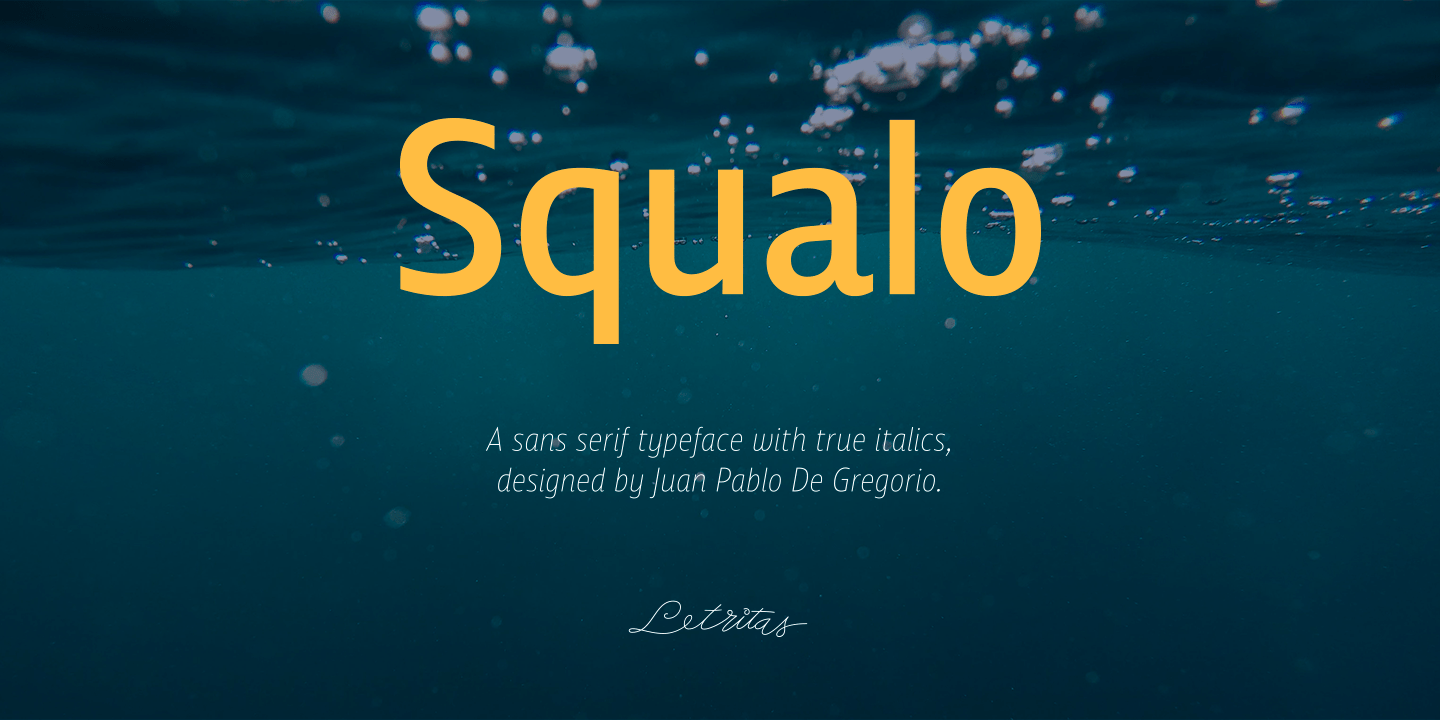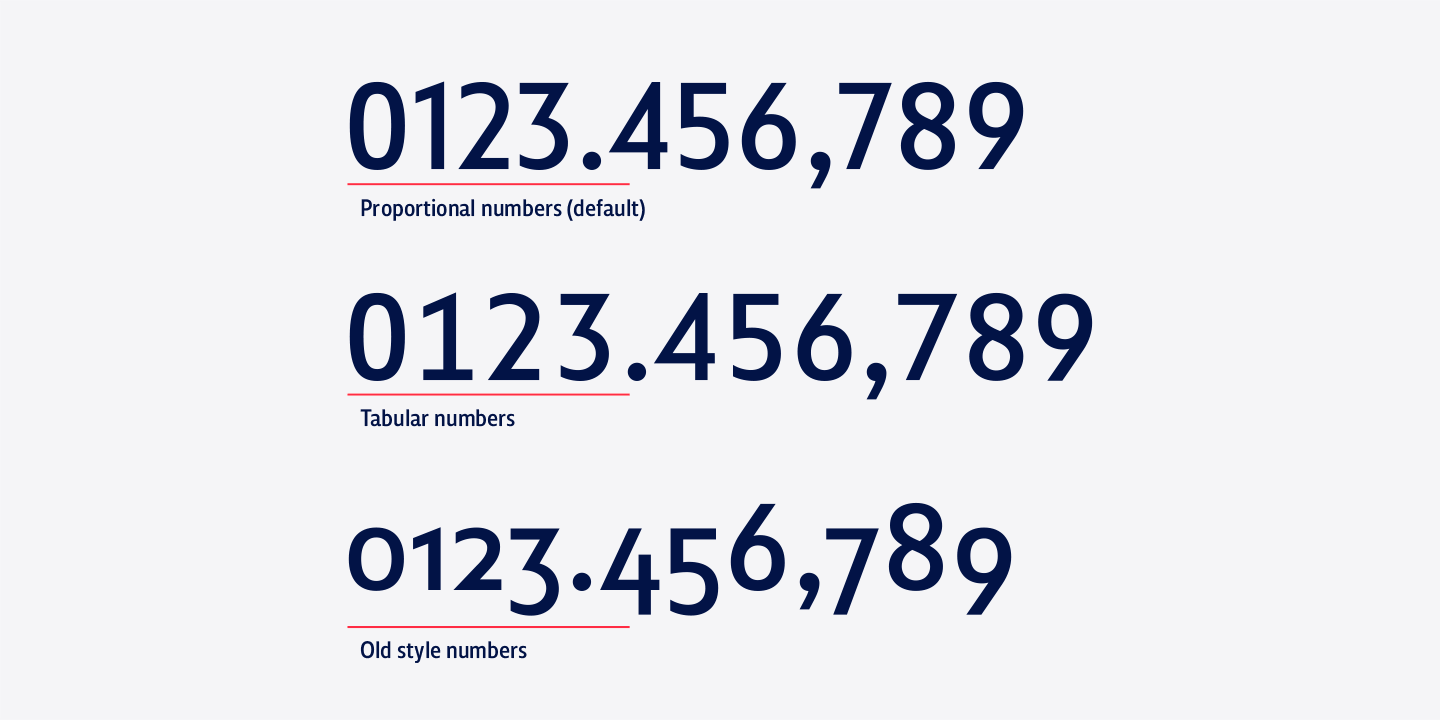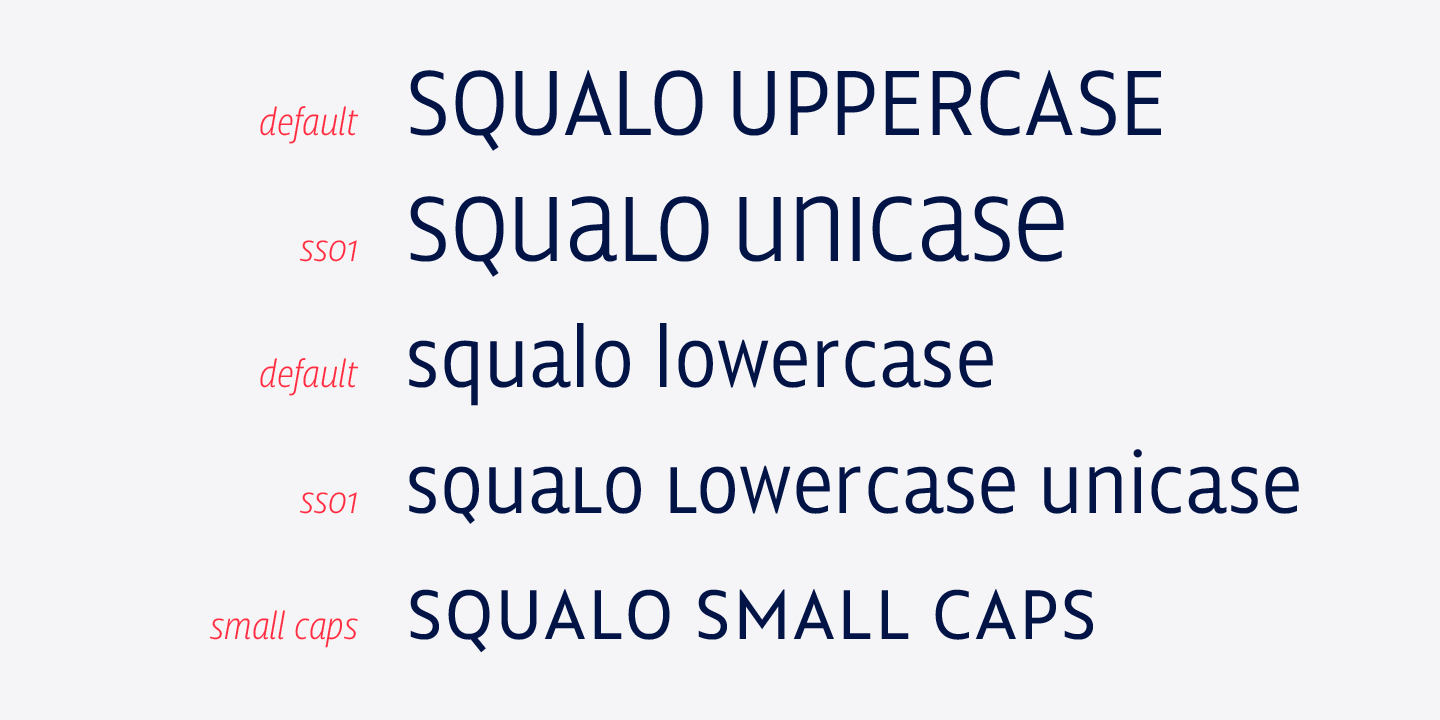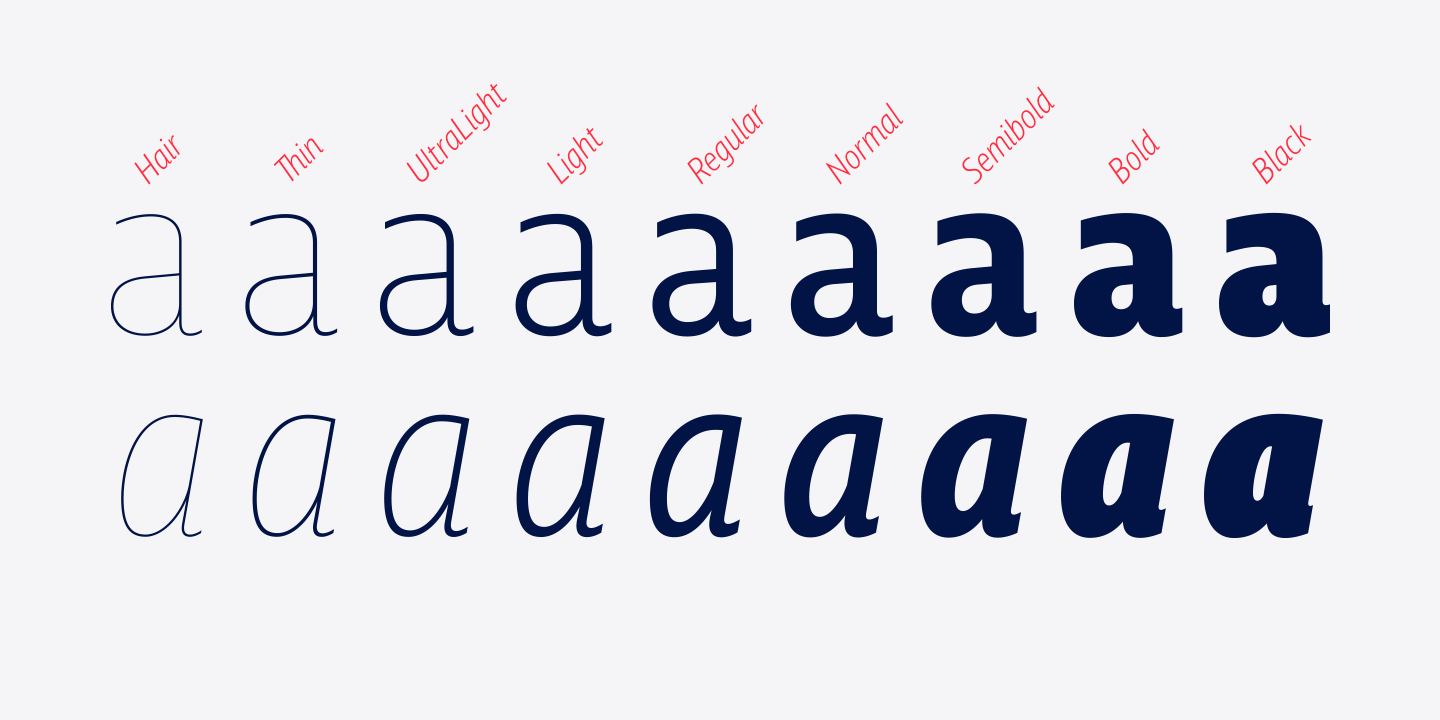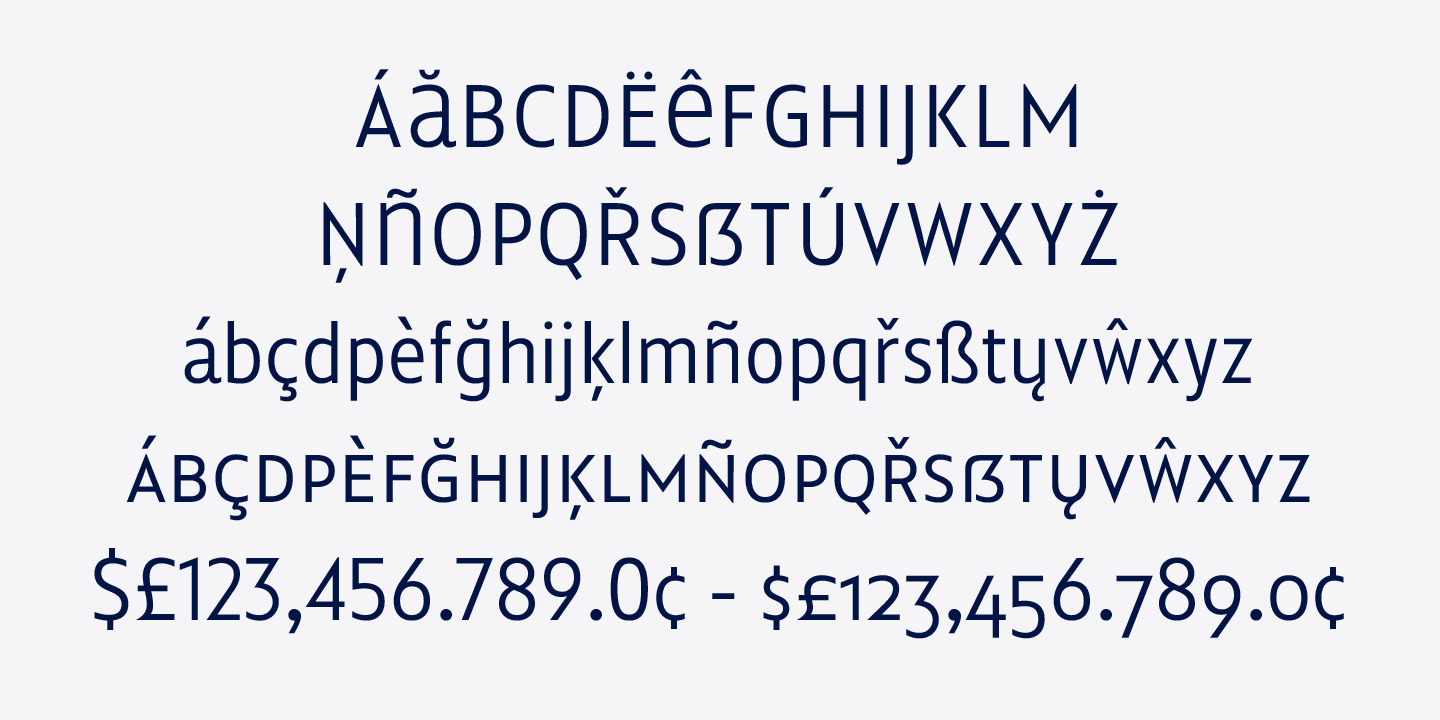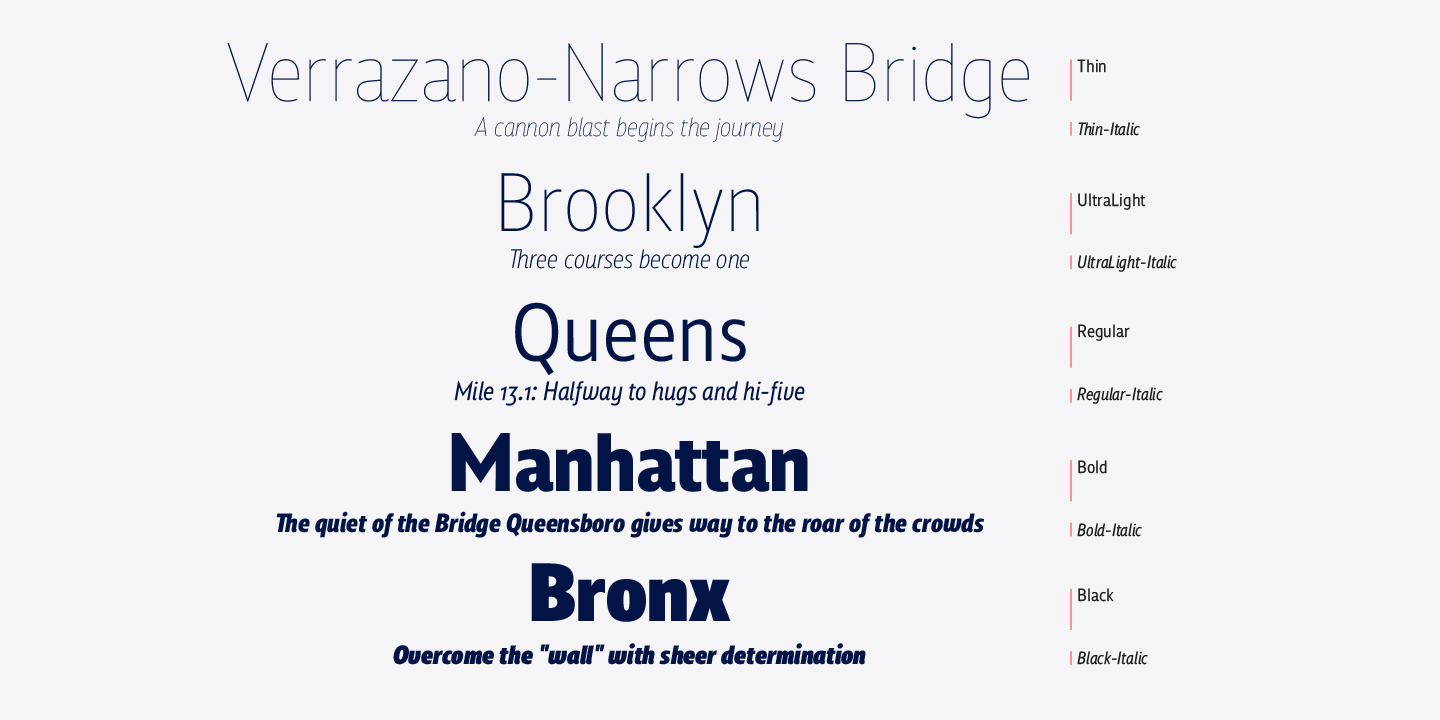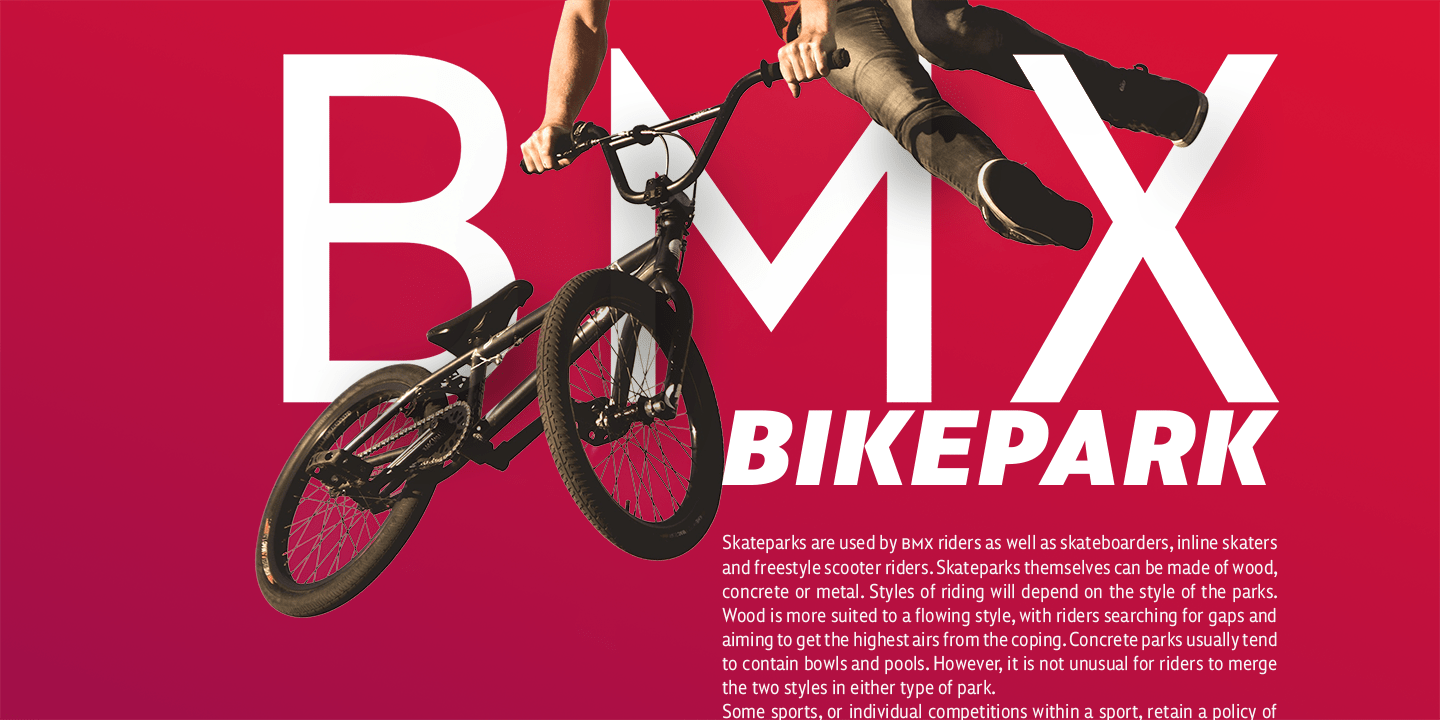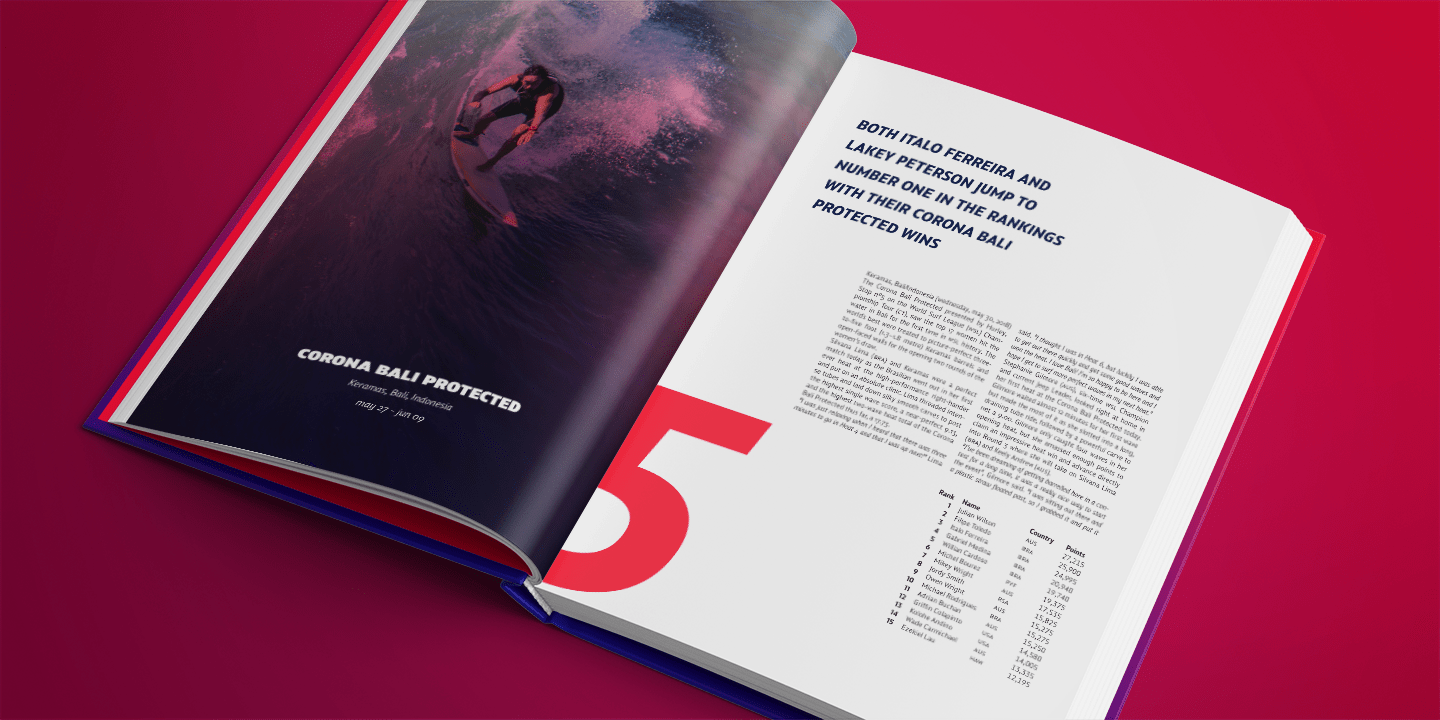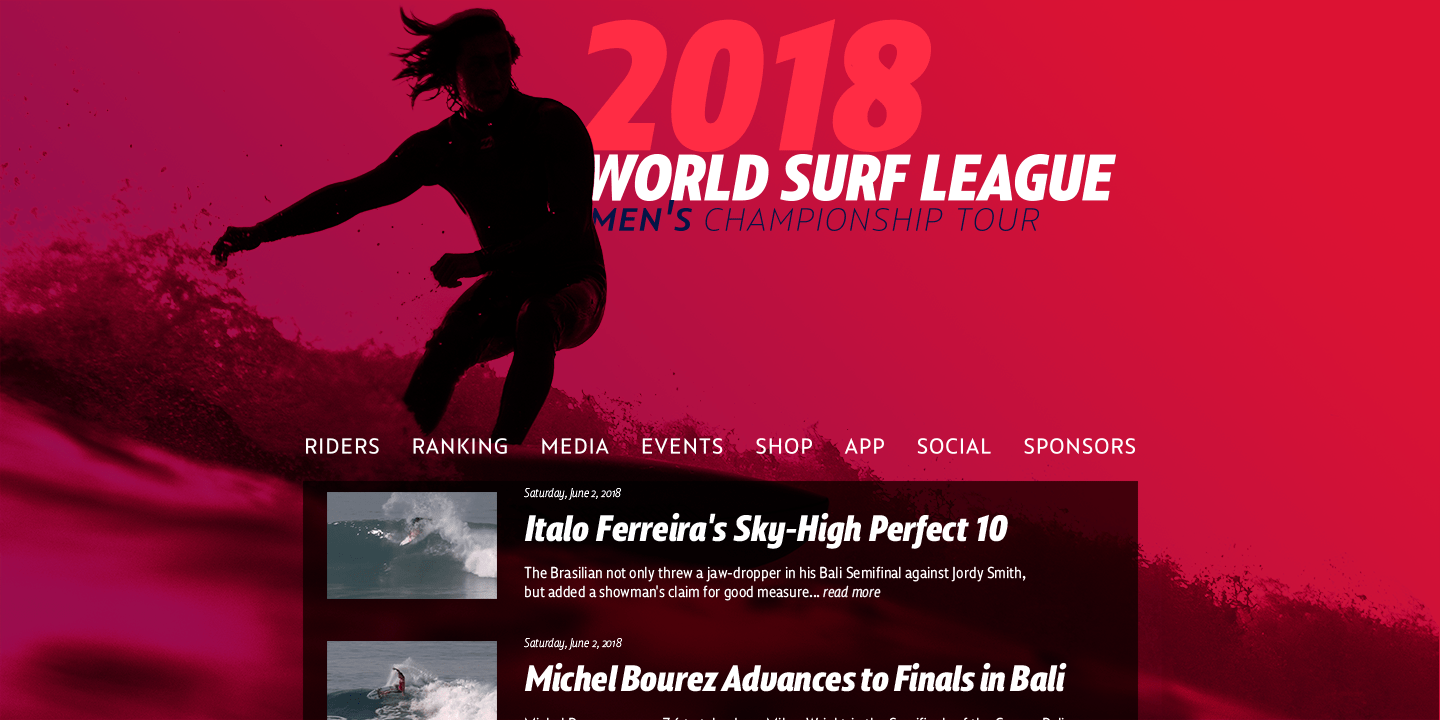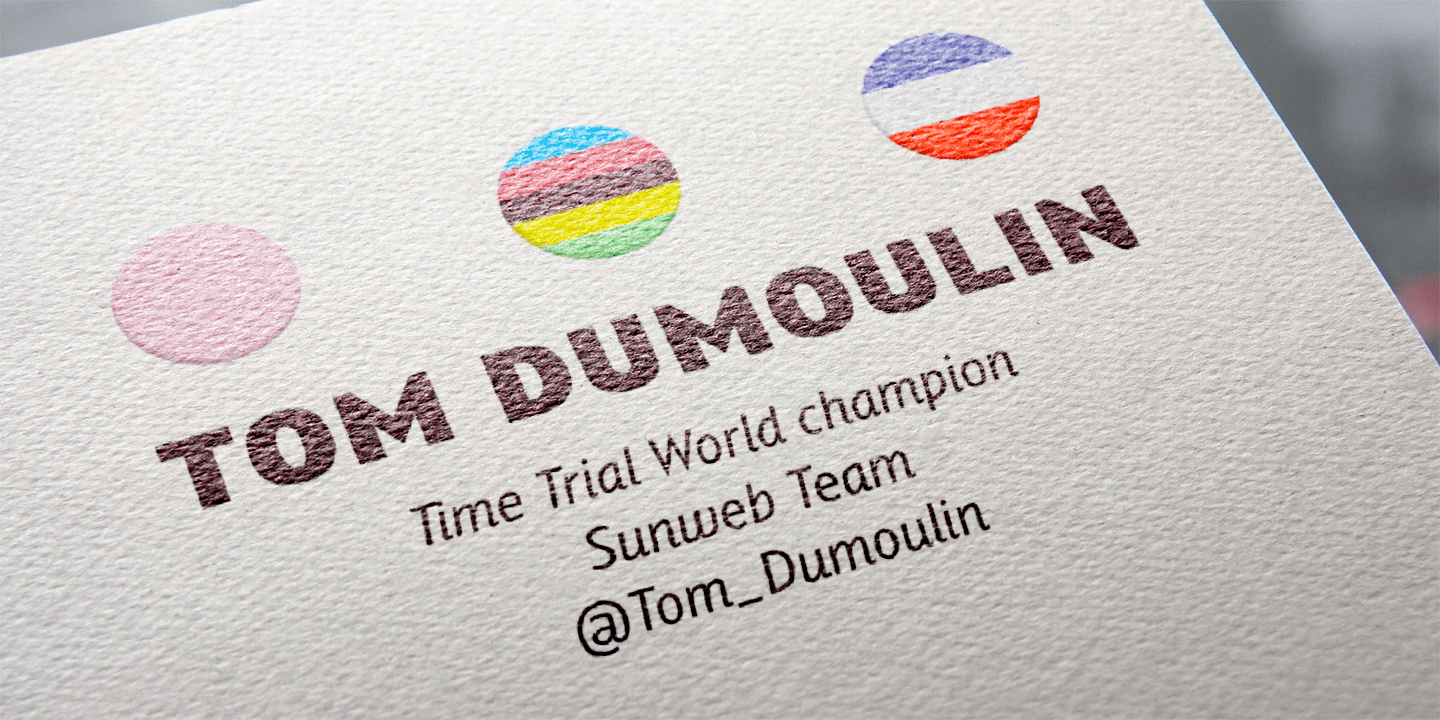
Squalo
Squalo, the genesis
The idea of this new project called Squalo bumped into my mind when when I was working up with excitement to my sketches, chasing for a strong typographical character, that for me has to be crystallized in a form which is always legible and functional.
The concept
The concept of Squalo raises from the observation of athlete’s bodies: you can notice that even if they are all thin, they all show at the same time strong, cut and chiselled figures. The sport they play molds and modify their bodies.
Just think, for instance, to a professional swimmer: during the competition every single muscle, tendon, tissue, cell is working to swim faster. Every single part is there to give strongness and speed like in a squalo (shark in italian).
Neither as an eel, nor as a mermaid, nor as a hake. Just like a shark.
If you take a quick look, you can notice that the width of the typeface is slightly more condensed than that one of a regular typography sans serif. This helped to strengthen the concept of stylized typography.
On the other hand, the tip ends of the characters A, V, W, Z, v, w, z, create a feeling of “tension”, reinforcing the concept of shark, danger, caution, as well agile movements. pure strength. I wanted to recall the exact moment of the kickstart in a 100 meters race: when the sprinter spreads all his powerful energy.
The italic version, starting from the former two typographical concepts (that is condensation and tension) emphasizes them. First of all, I compressed the characters 10 percent more, and slanted it 10 degrees to the right. With this movement I intended to convey the gorgeous feeling of tension in power and rapidity.
The typeface has 9 weights, from “hair” to “black”, and two versions, “regular” and “italic”.
There are 18 source files that contain small caps, unicase, tabular and oldstyle numbers, numerators and denominators, and much more.
Squalo is an ideal typeface that I recommend to use in marketing campaigns, in design of packaging, magazines, branding for tv programs, films, book texts, editorial, publications, logos, corporative projects, web texts, and graphic design in motion.